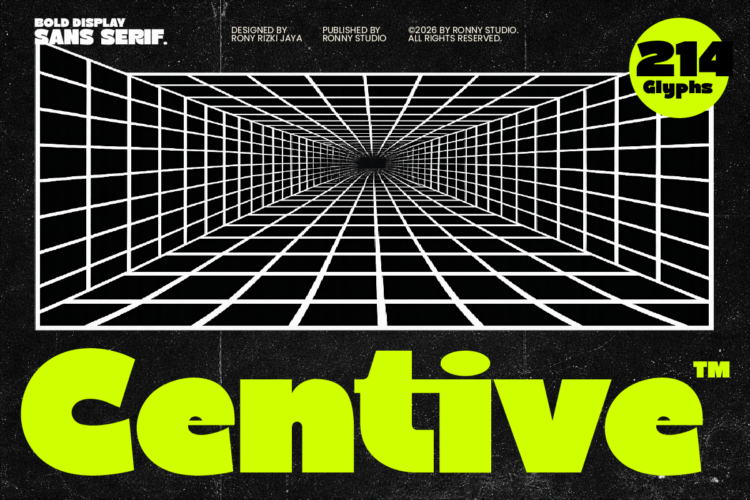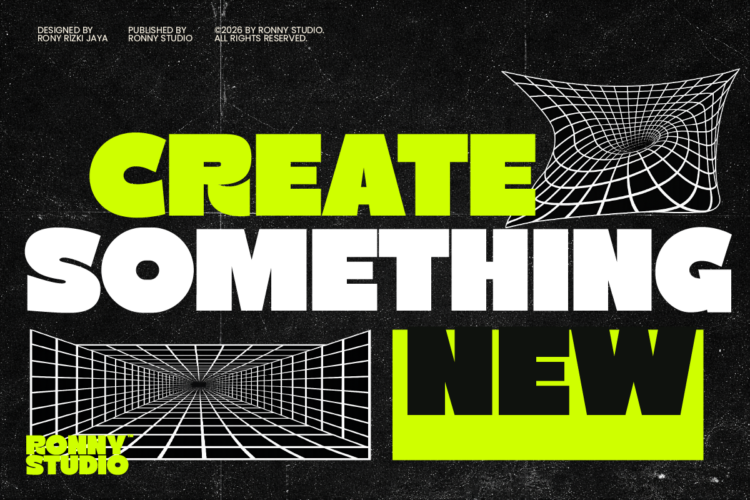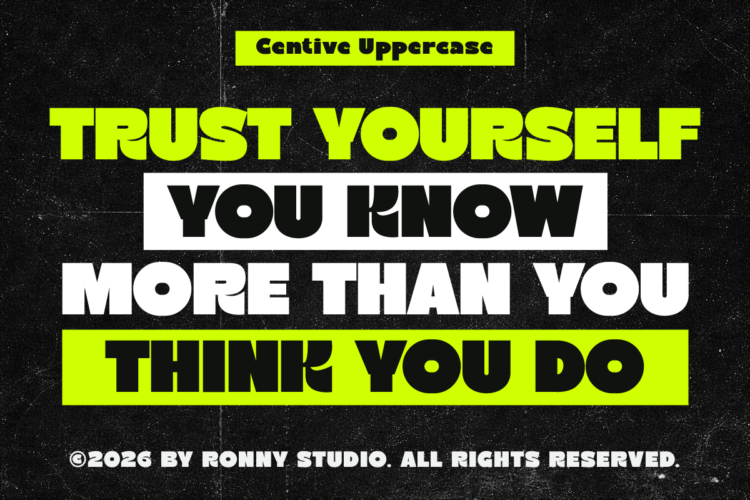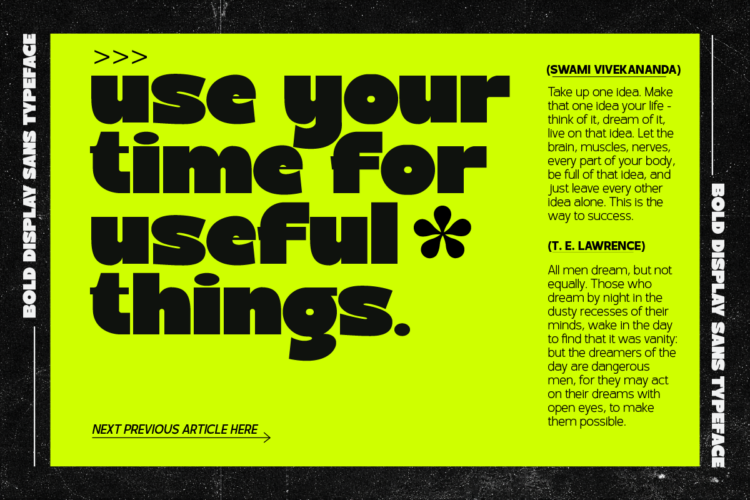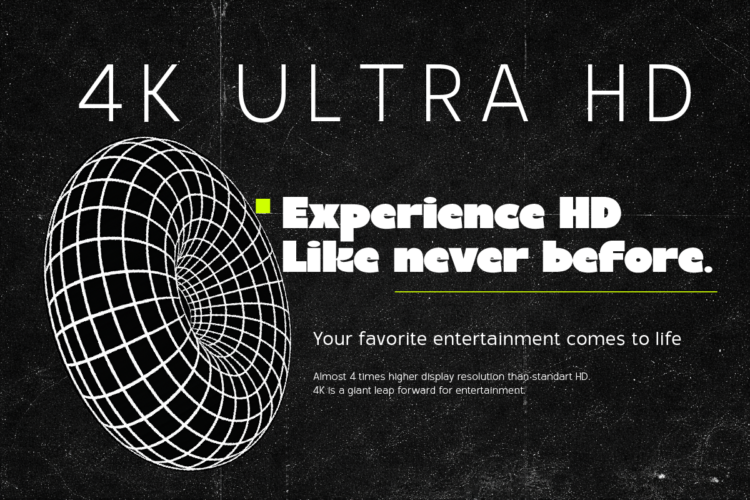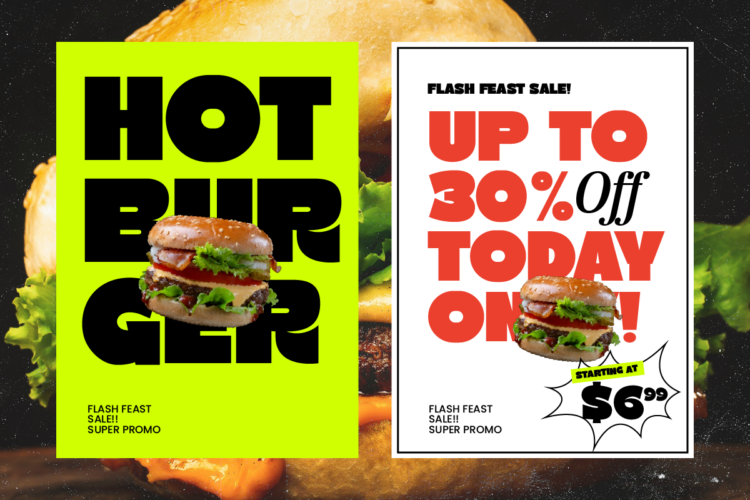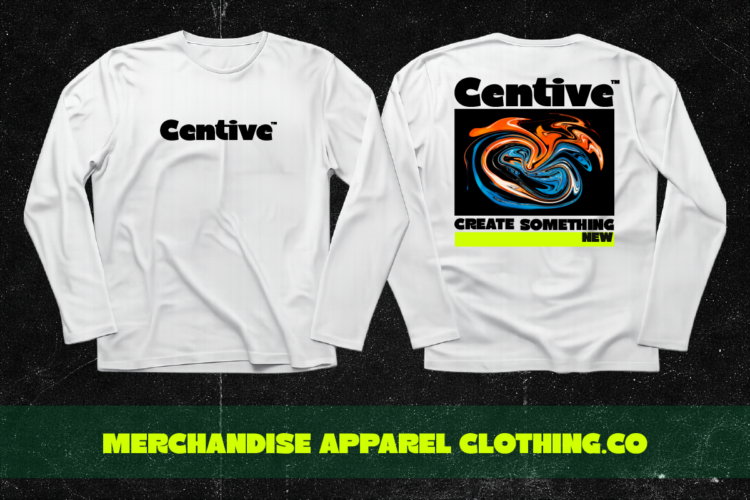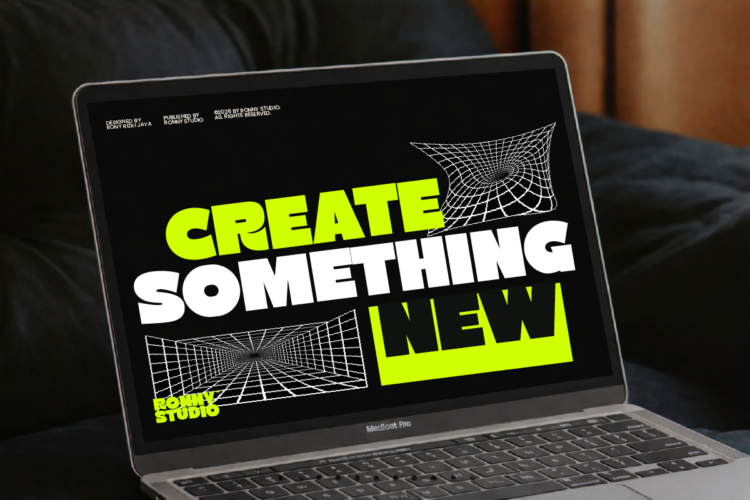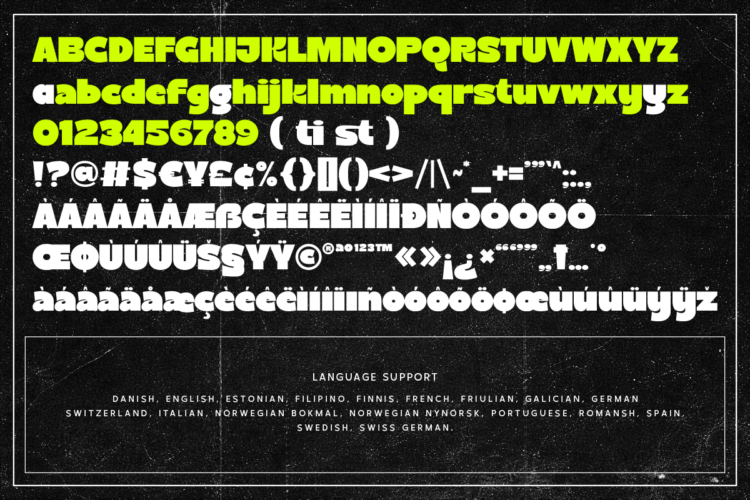
Centive is a bold display sans serif built with power, confidence, and a futuristic edge. Featuring thick geometric forms and strong visual weight, this font delivers an impactful presence that instantly commands attention.
Inspired by retro-futuristic grids and modern tech aesthetics, Centive blends bold minimalism with a dynamic urban feel — making it perfect for high-impact visual communication.
Its solid structure and clean cuts create a confident, contemporary look that works effortlessly across digital and print designs.
✦ Font Features
-Bold display sans serif
-Strong geometric letterforms
-Uppercase & lowercase
-Numbers & punctuation
-Alternates & ligatures
-Multilingual support
-200+ glyphs